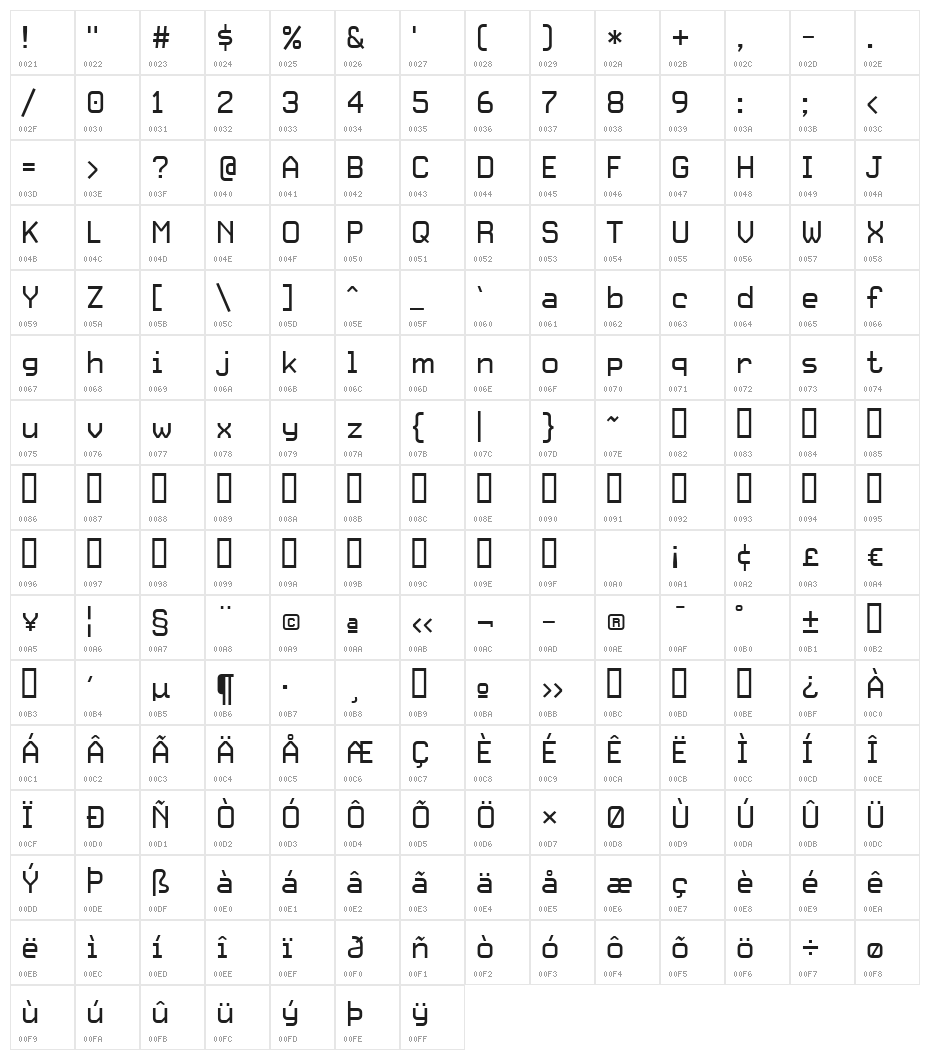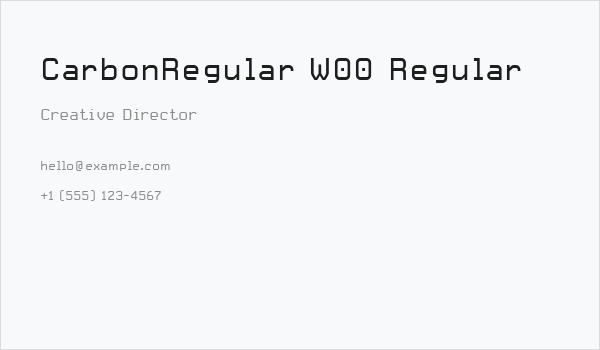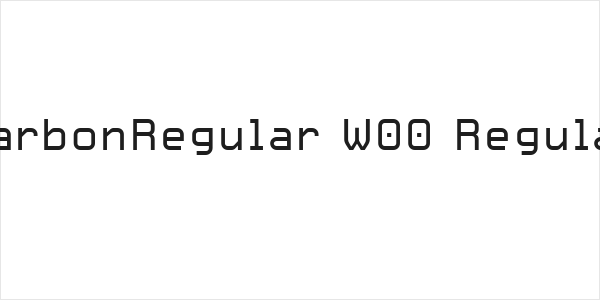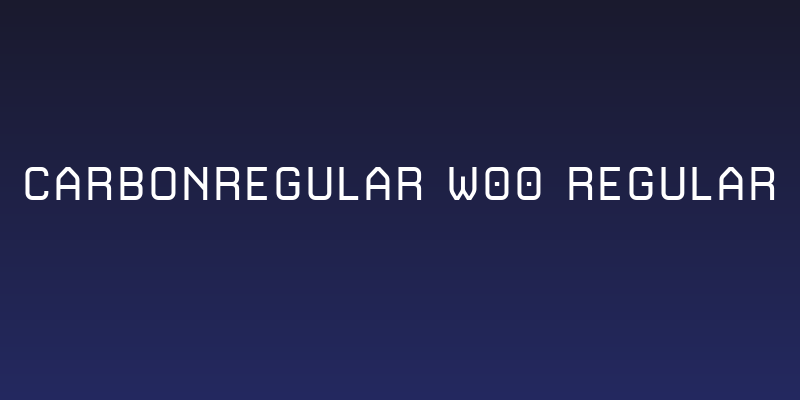
CarbonRegular W00 Regular Font
CarbonRegular W00 Regular Description
This font features a clean, geometric design with a modern aesthetic. The characters are uniform and well-proportioned, offering a sleek and professional appearance. The uppercase letters are bold and assertive, while the lowercase letters maintain a consistent style that complements the overall look. The numerals are clear and easy to read, making them suitable for various applications. Special characters are designed with the same attention to detail, ensuring a cohesive look across all glyphs. The font's simplicity and clarity make it versatile for both digital and print media.